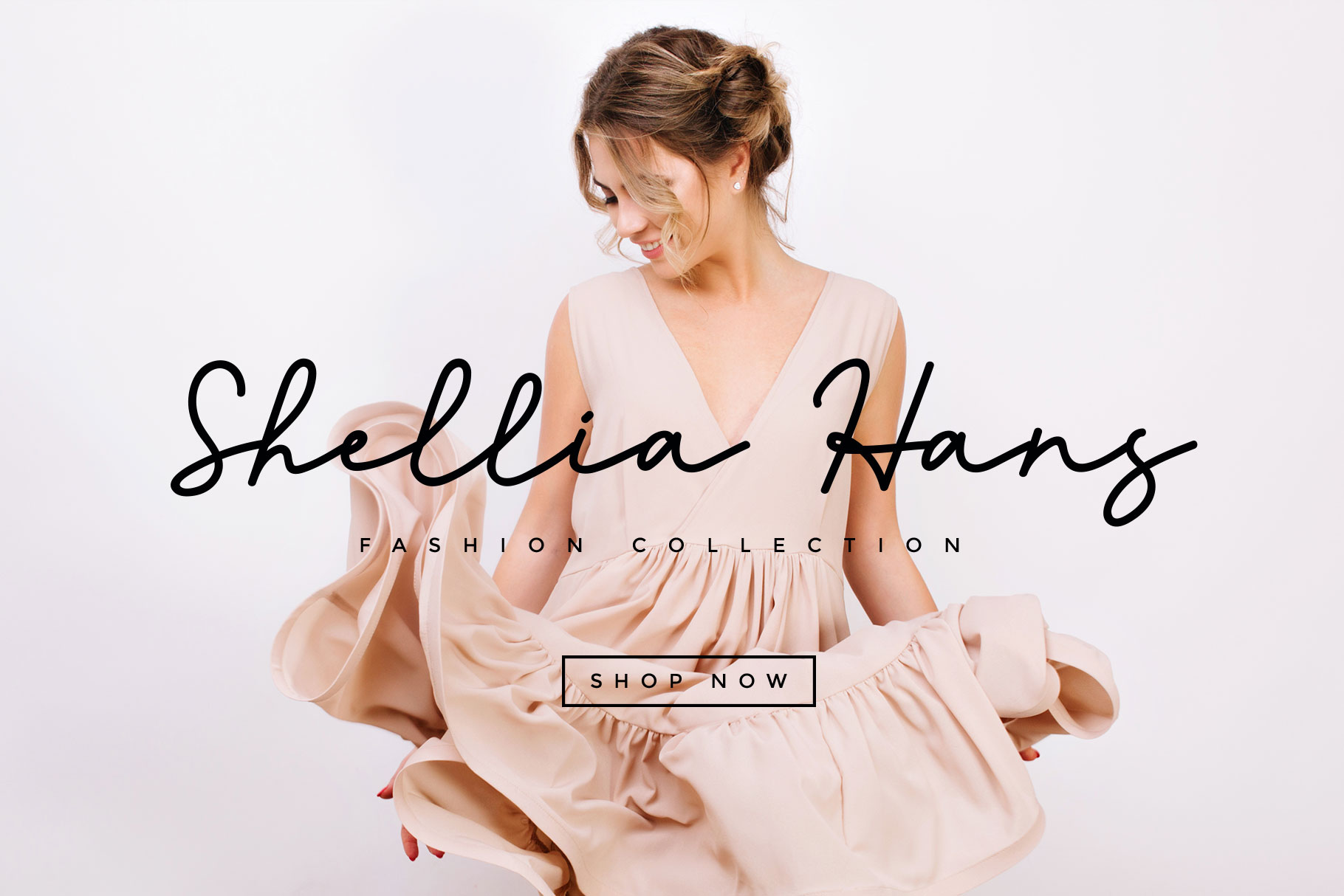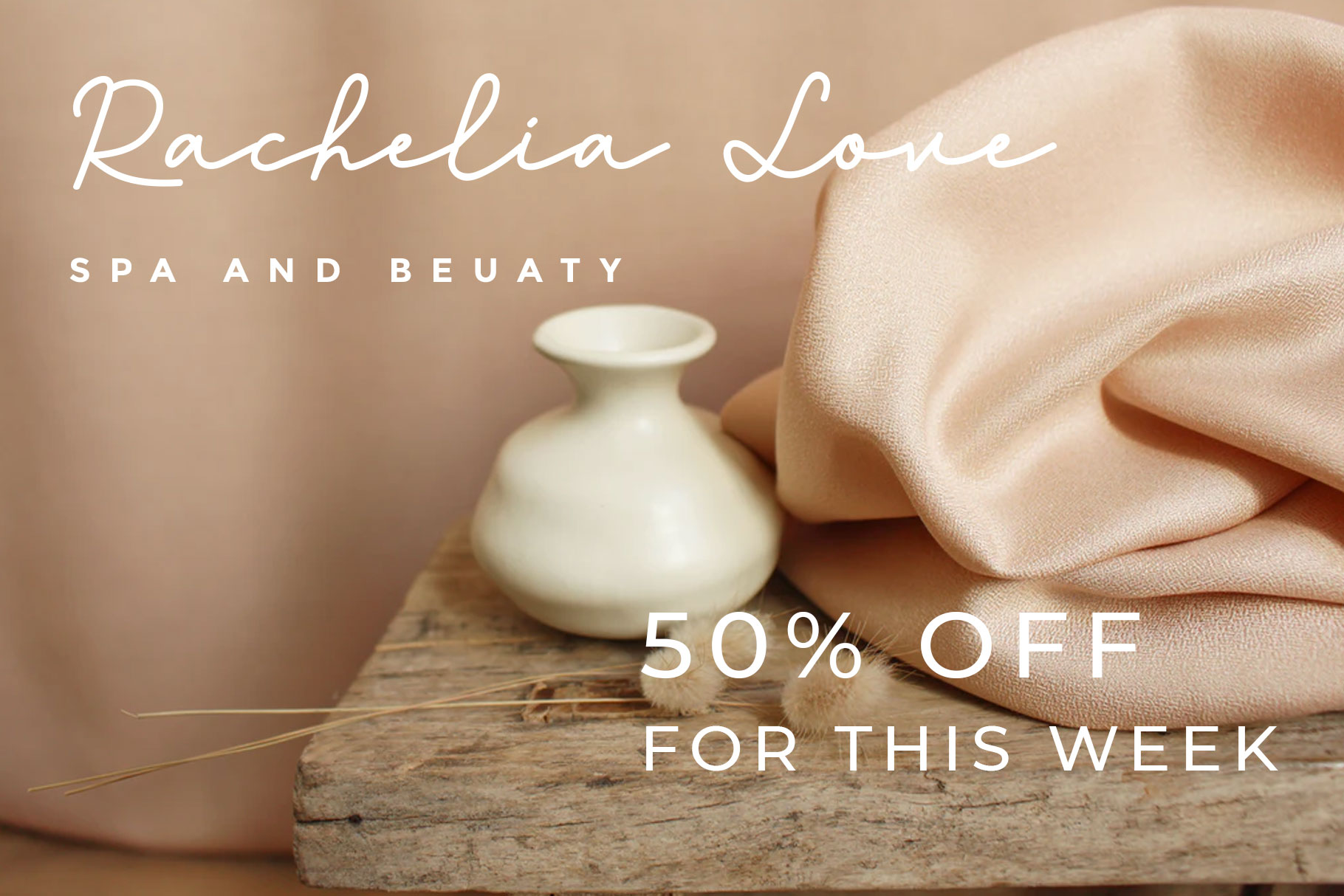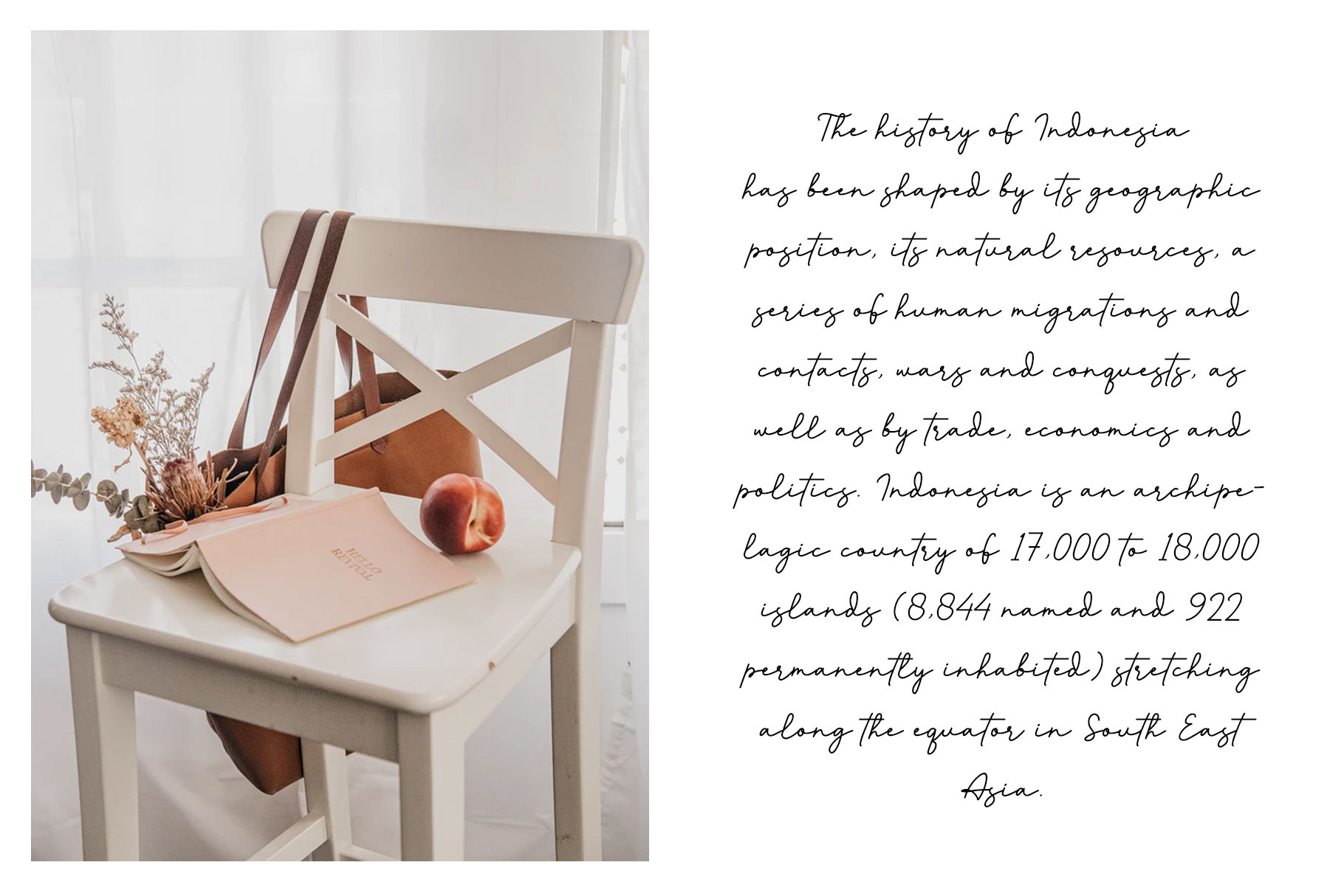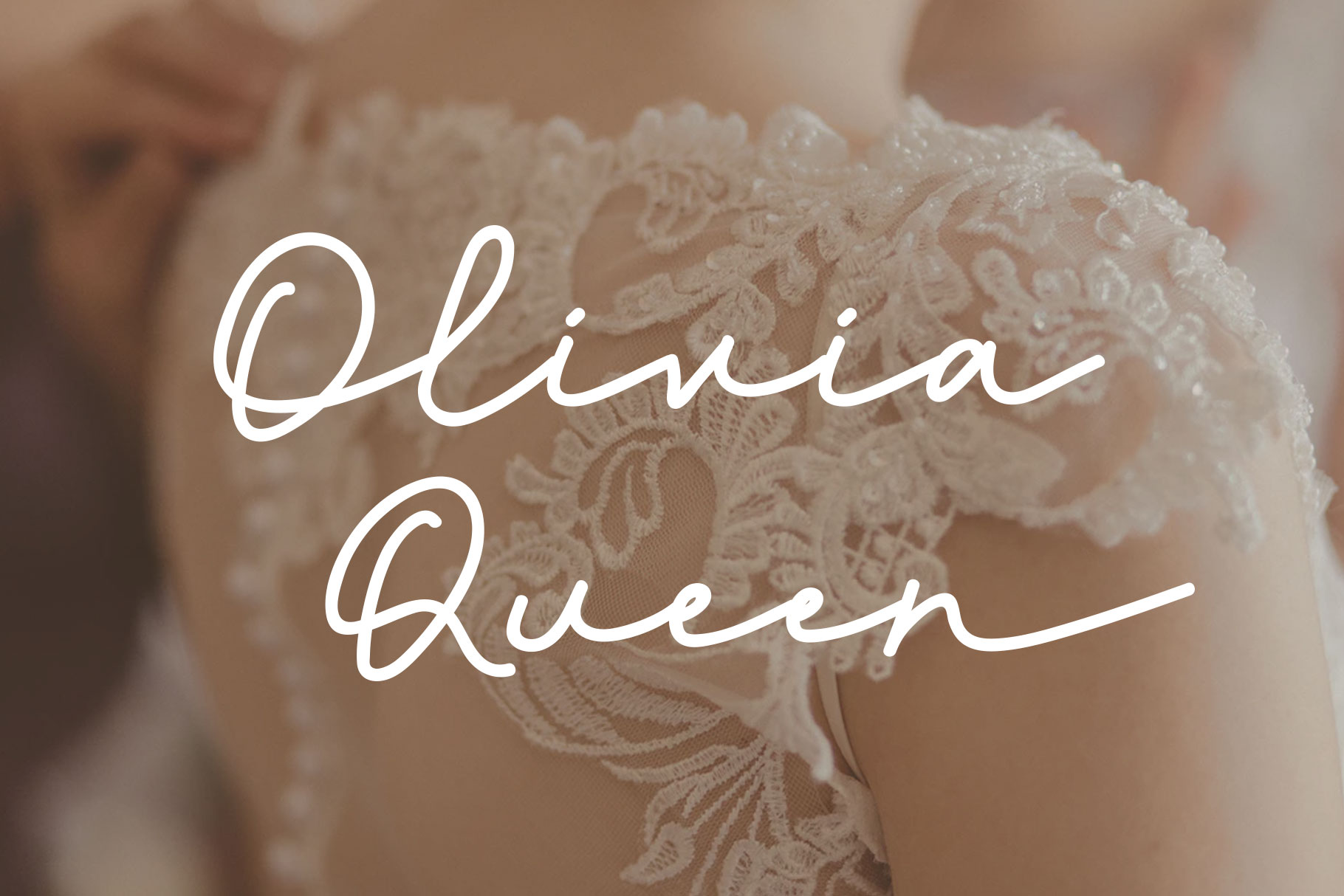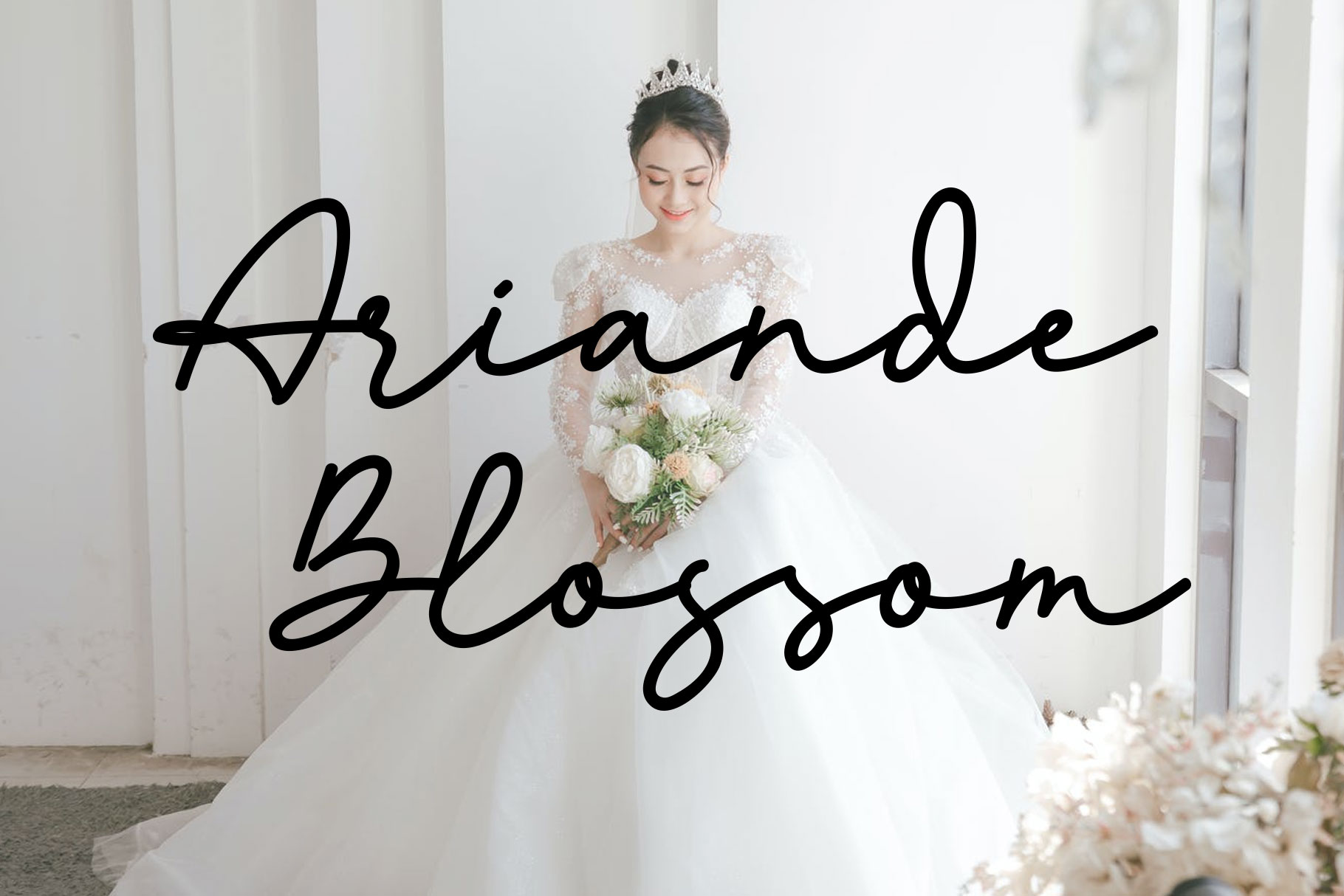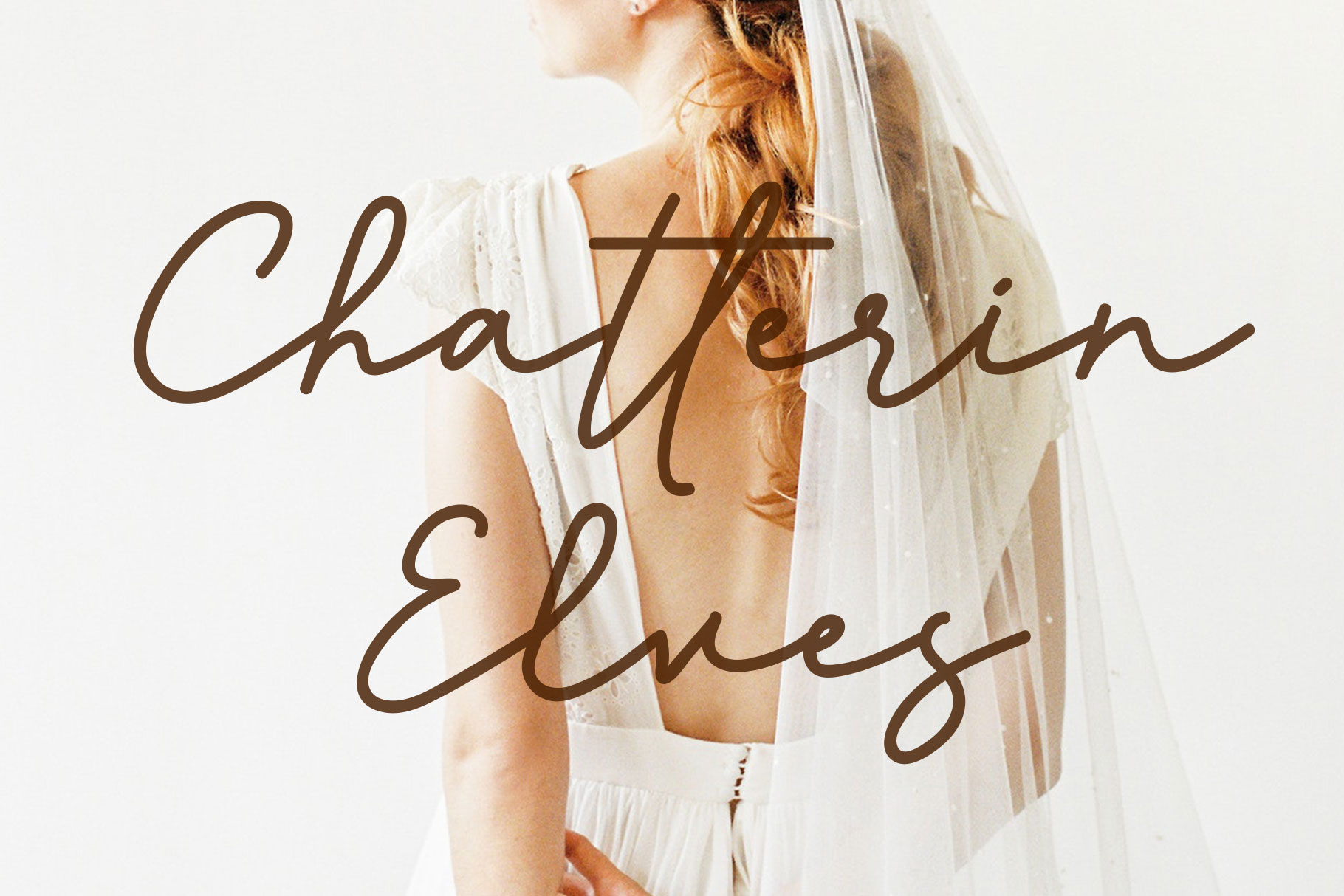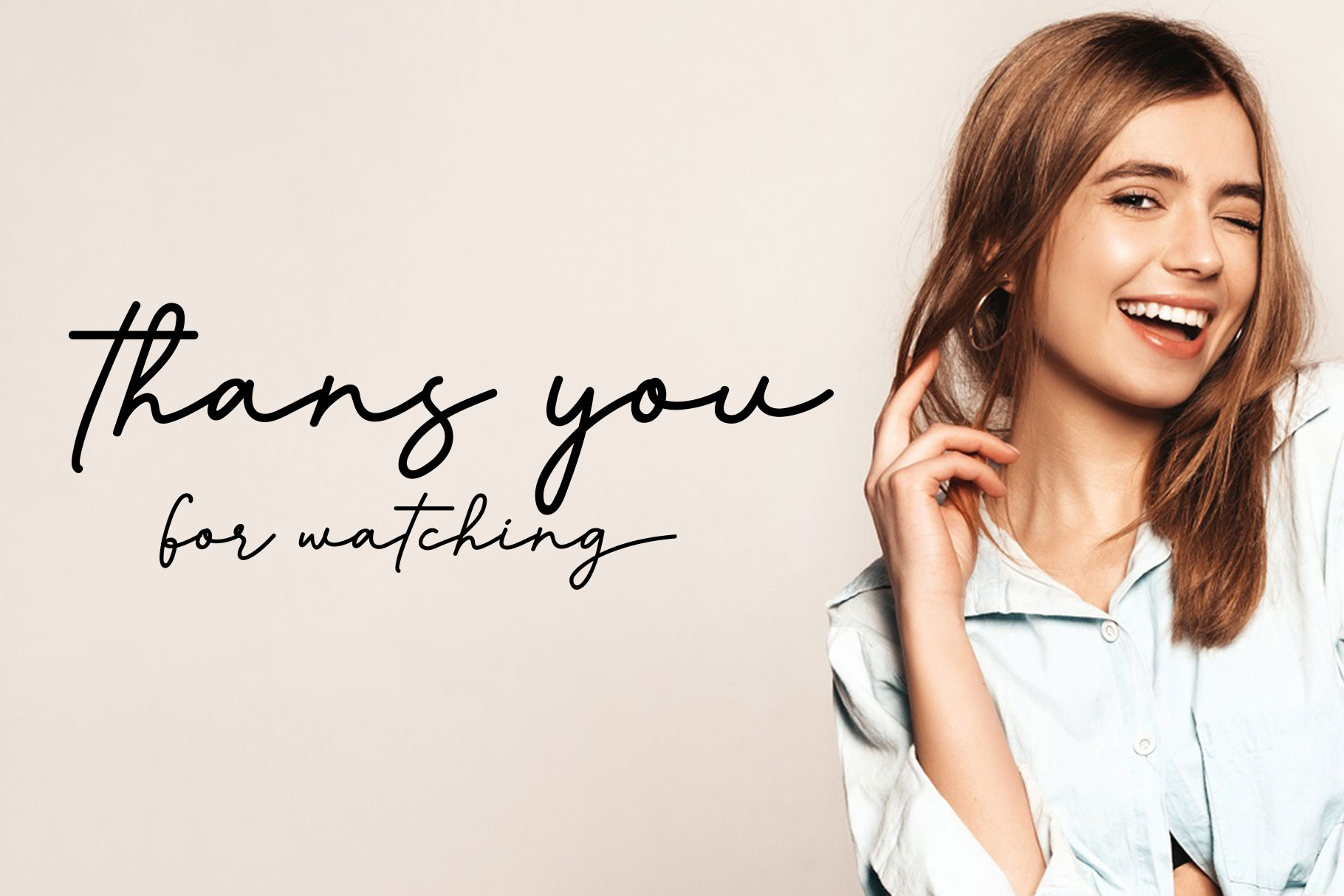
Thea Amelia Handwritten font
Thea Amelia is modern handwritten font reflects a beautiful and fun woman which can be interpreted professional. we keep this font looks modern, classy, readable, stylish, catchy and easy to use. Thea Amelia is the great choice for watermark on photography, signature or signature logo design, quotes, album cover, business card and many other design project. Thea Amelia is here to make your work to high level!!!
• Basic Latin A-Z and a-z
• Alternate with lowercase end swash